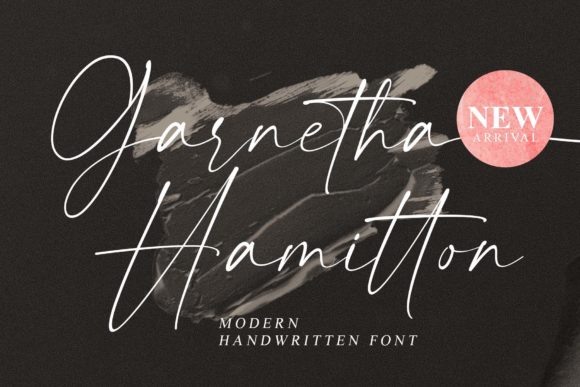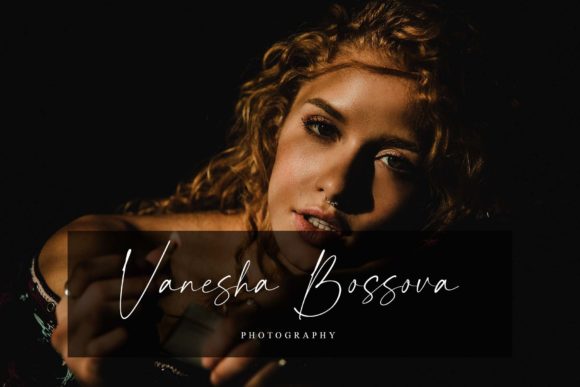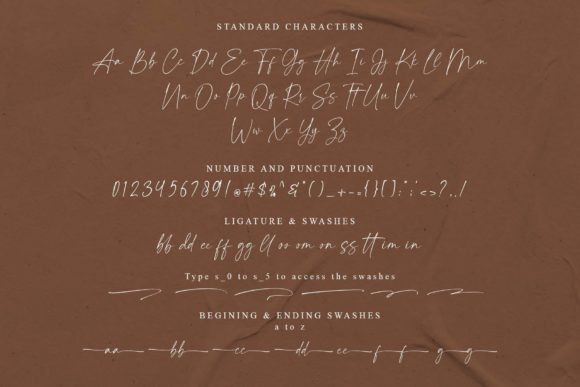
About Garnetha Hamitton Font
Garnetha Hamitton is an exquisite handwritten font, masterfully designed to become a true favorite. It maintains its classy calligraphic influences while feeling contemporary and fresh. This font is PUA encoded which means you can access all of the glyphs and swashes with ease!